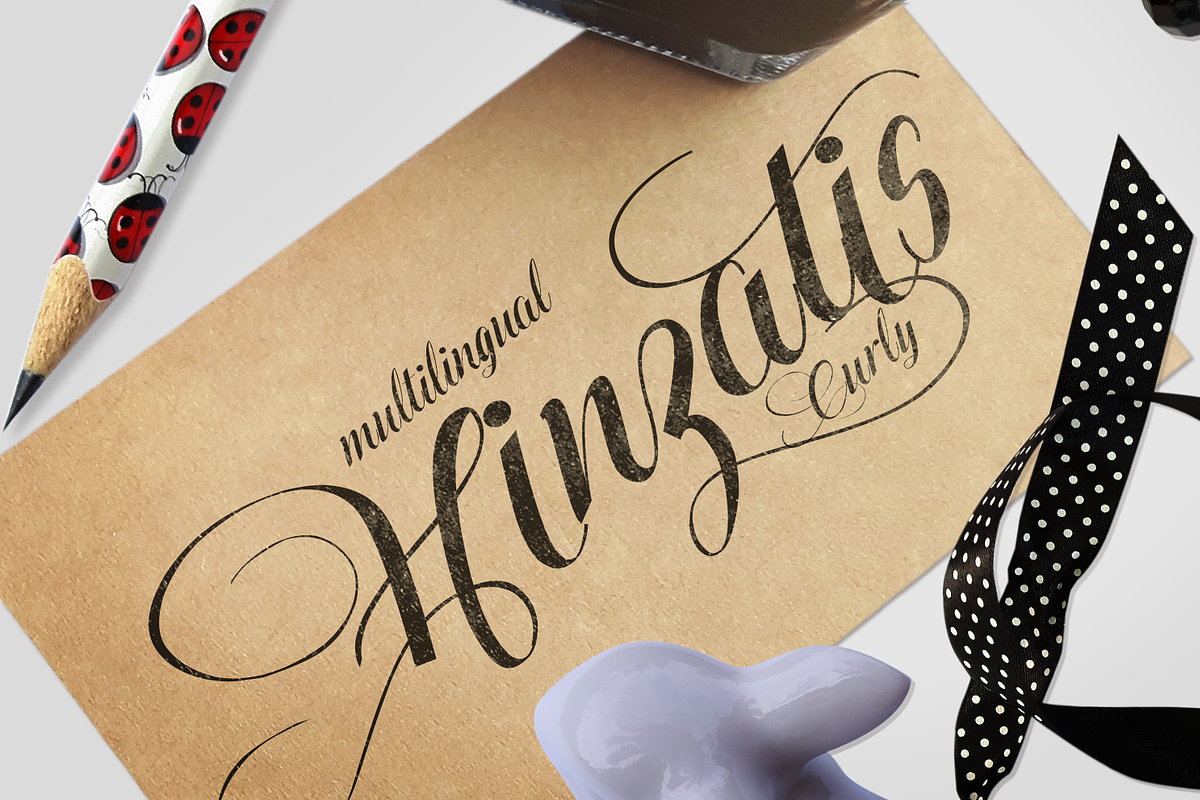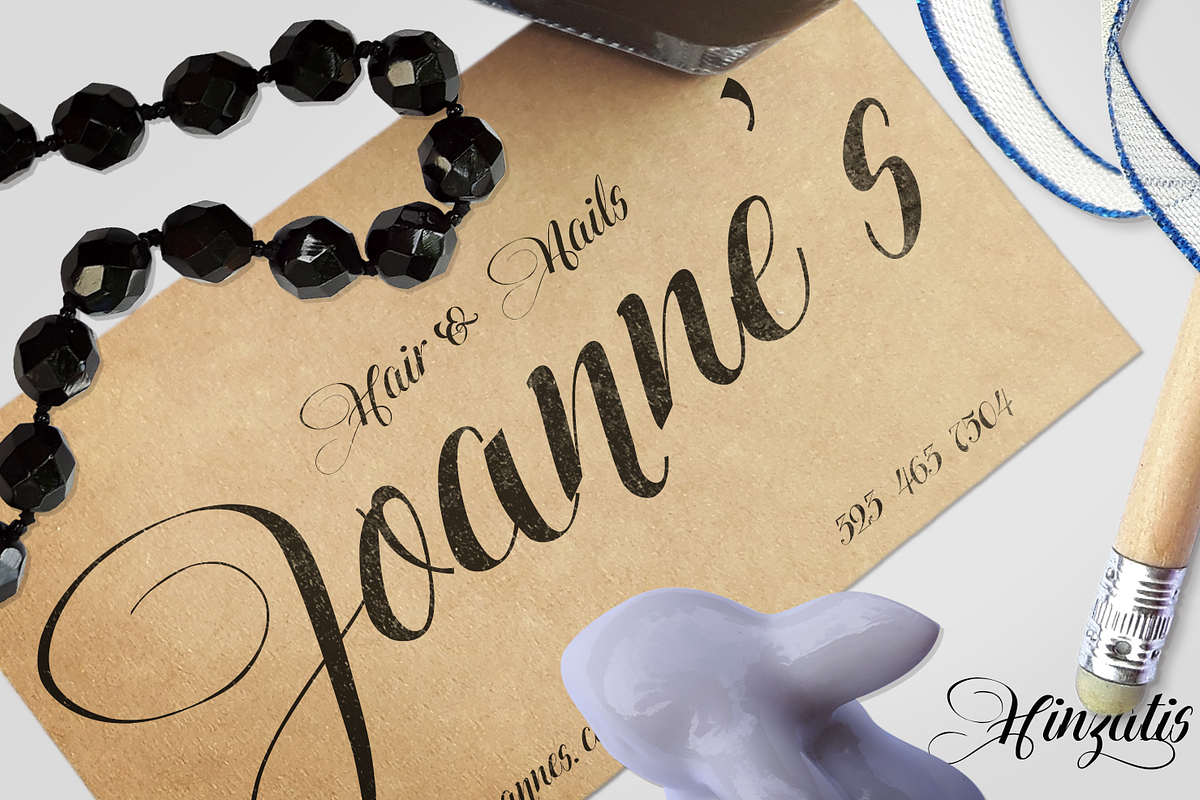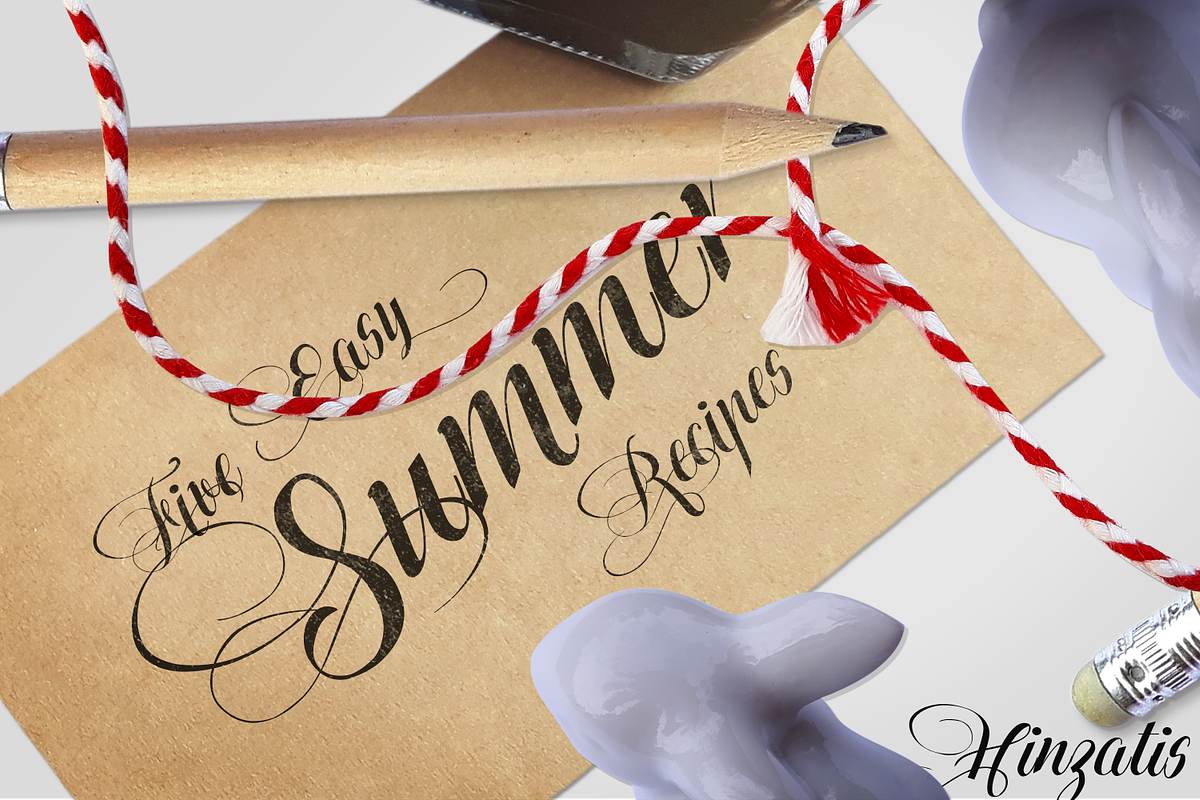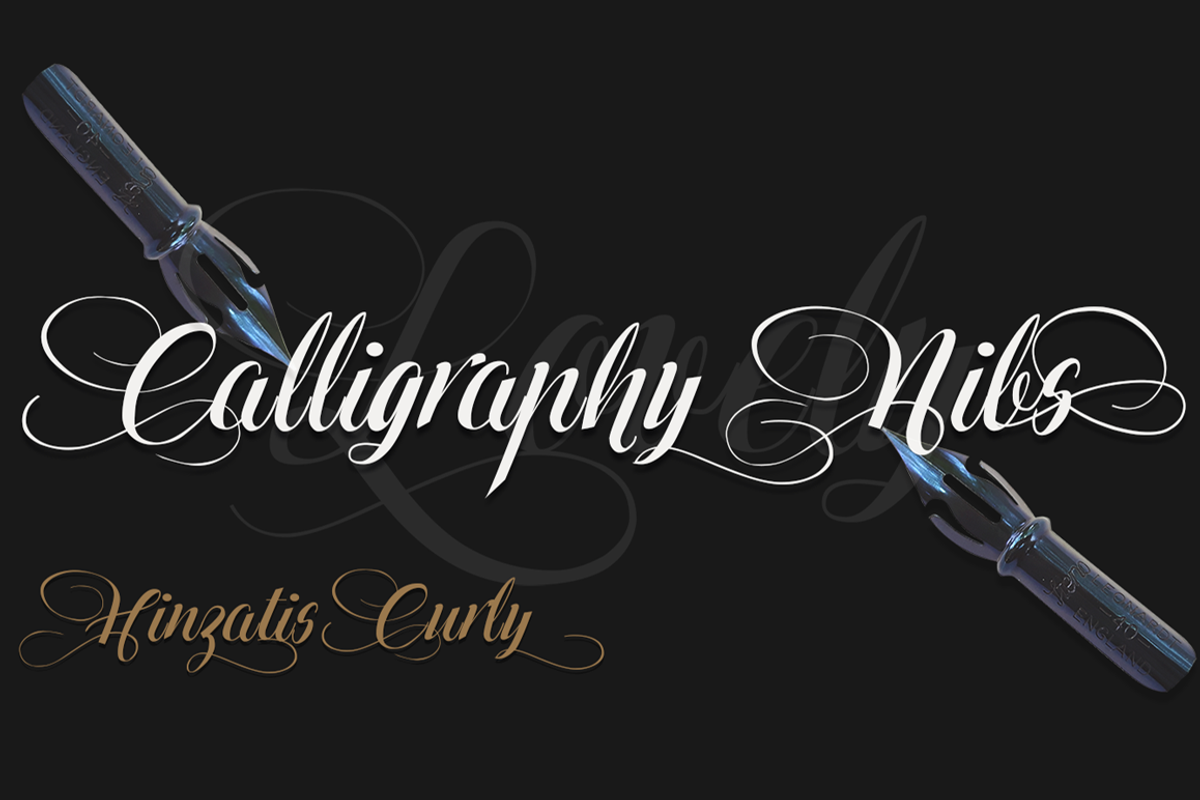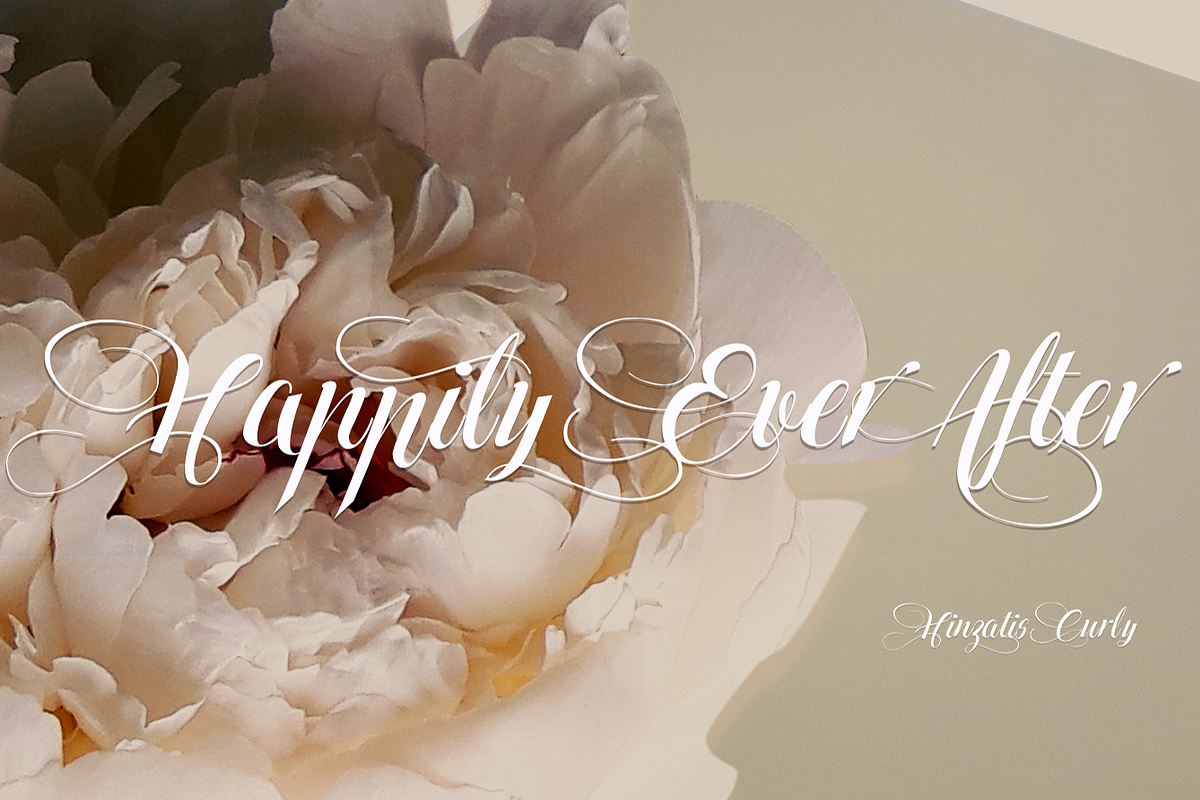
Hinzatis Curly (otf font)
Hinzatis Curly (otf font) by Aga Silva is a font selected for branding, posters, packaging, typography.
- This listing is for one font file, namely Hinzatis Curly font (open type font) This font is based on dip pen calligraphy and features many a
Why Hinzatis Curly (otf font) is worth a look
Hinzatis Curly (otf font) by Aga Silva fits naturally into Branding, posters, packaging, typography.